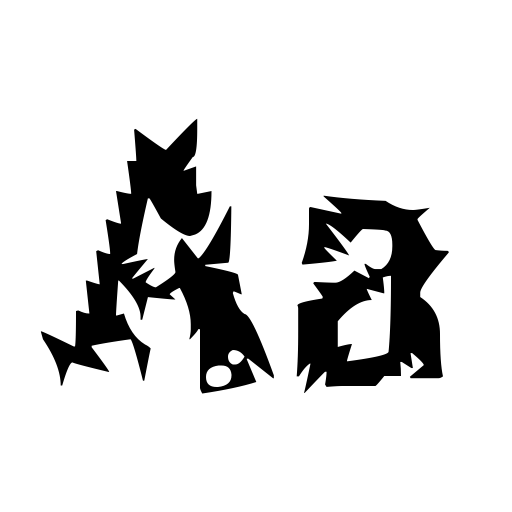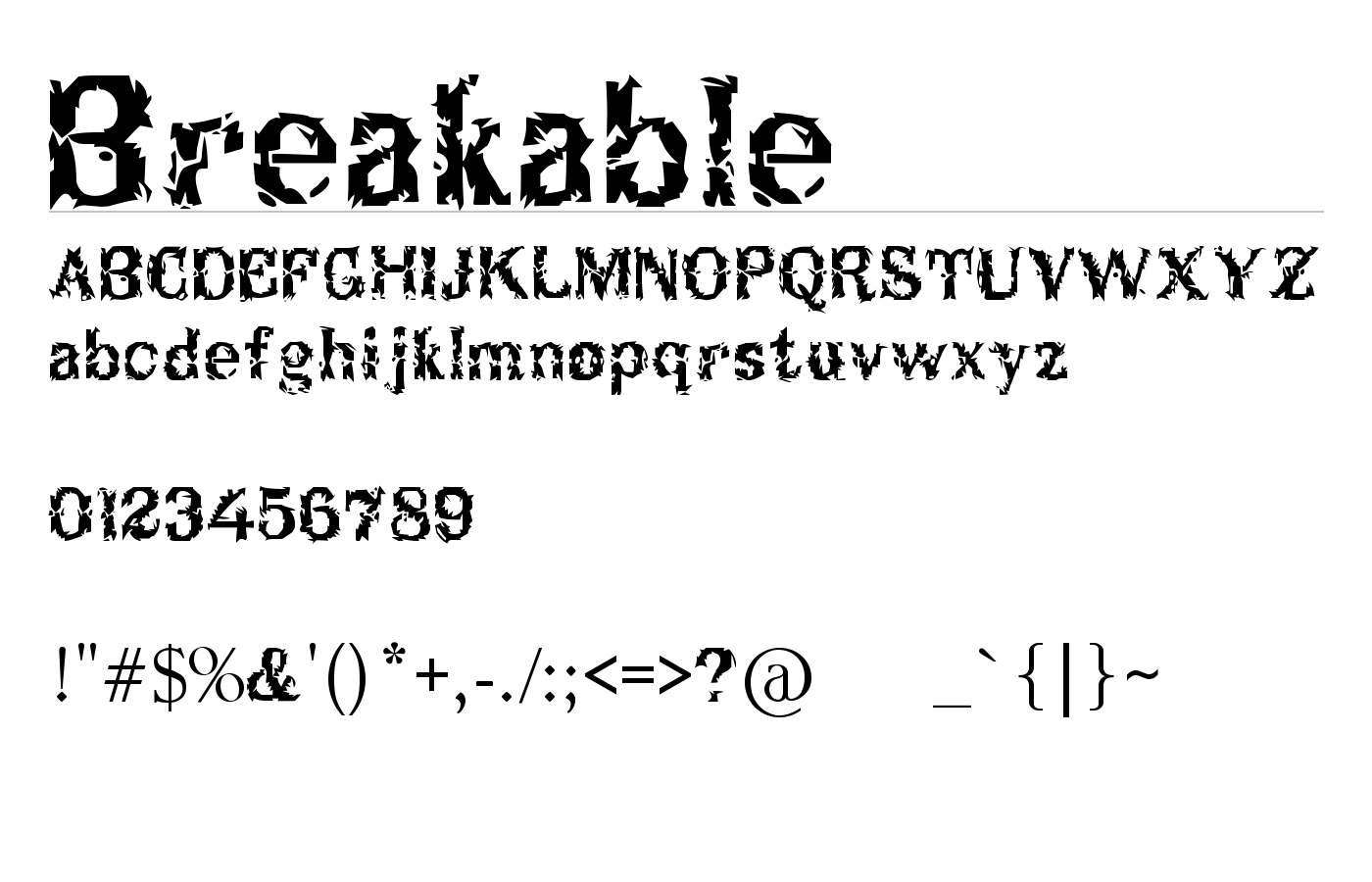
Breakable Font is a bold and distressed serif typeface with jagged, irregular edges that create a shattered, textured effect. Its sharp, broken strokes give it a dramatic and edgy personality, making it ideal for eye-catching headlines, posters, and designs seeking a gritty, rebellious vibe. This font works best in creative and unconventional branding where strong visual impact and a sense of fragmentation or decay are desired.
Breakable Font
About Breakable Font
| Font family | Breakable Font |
| Designer | Vidkä |